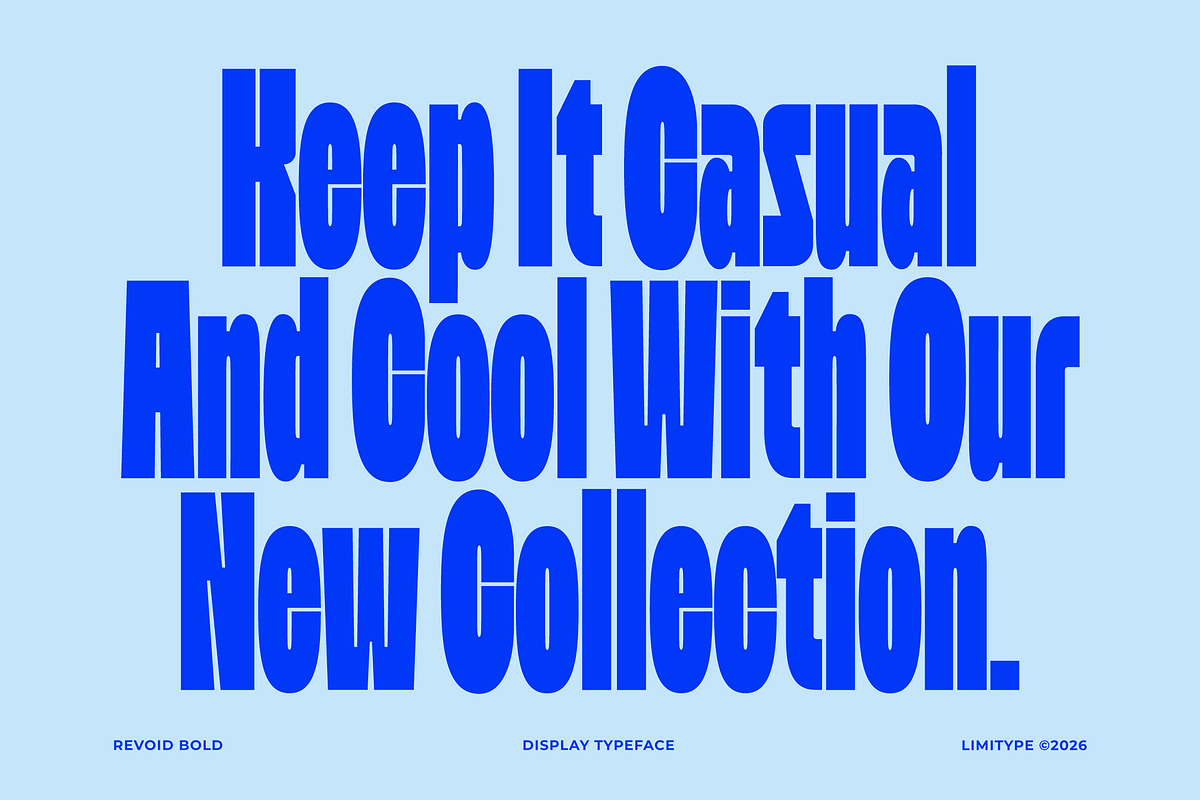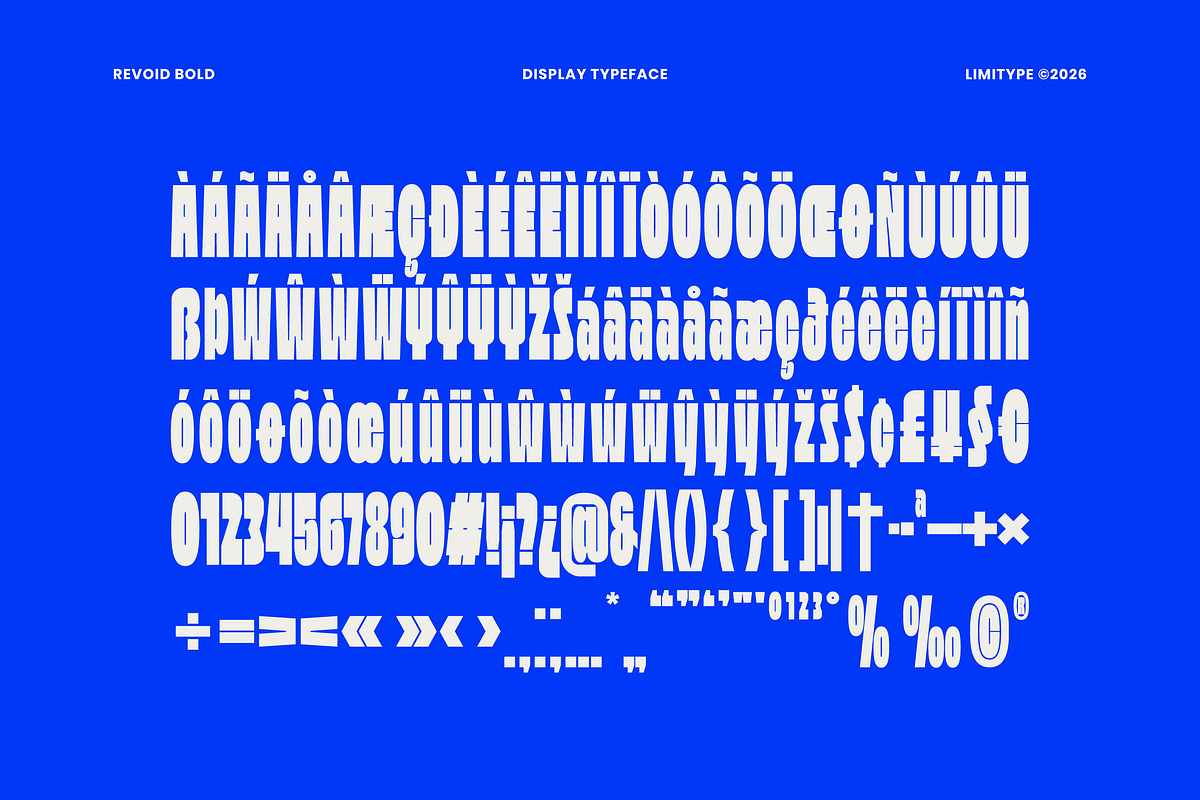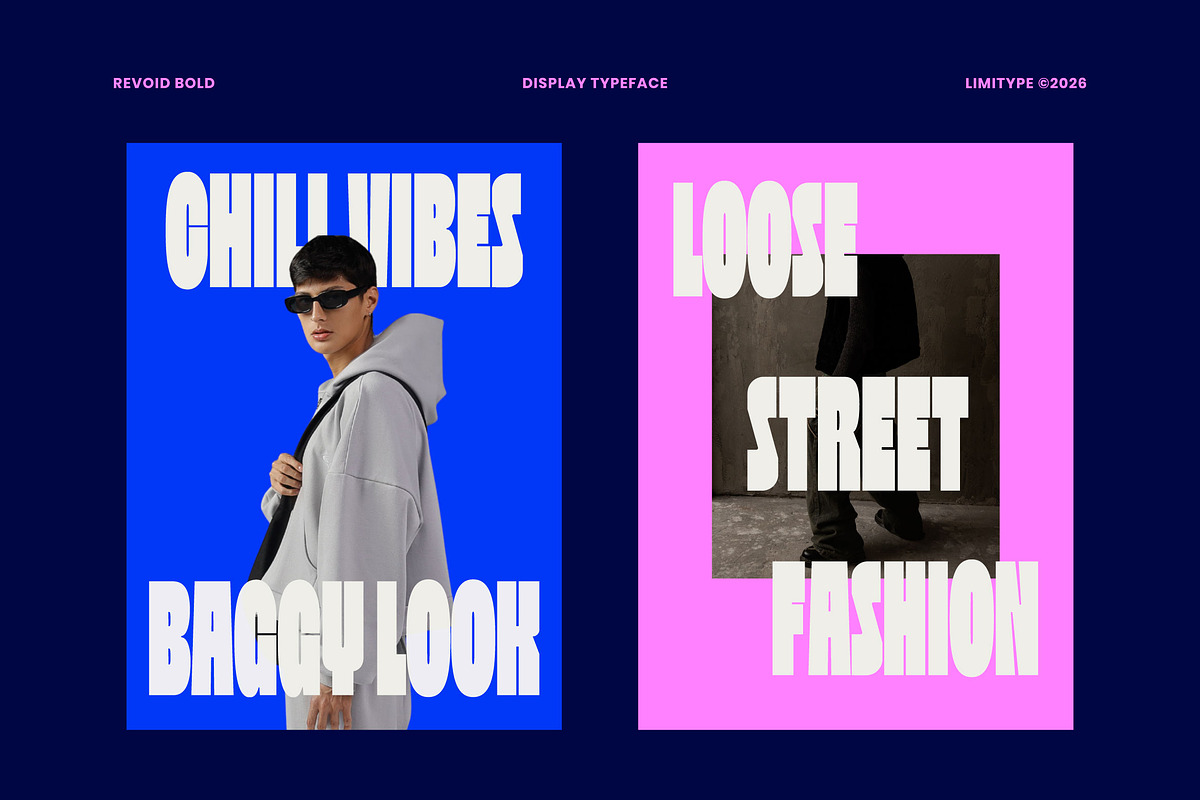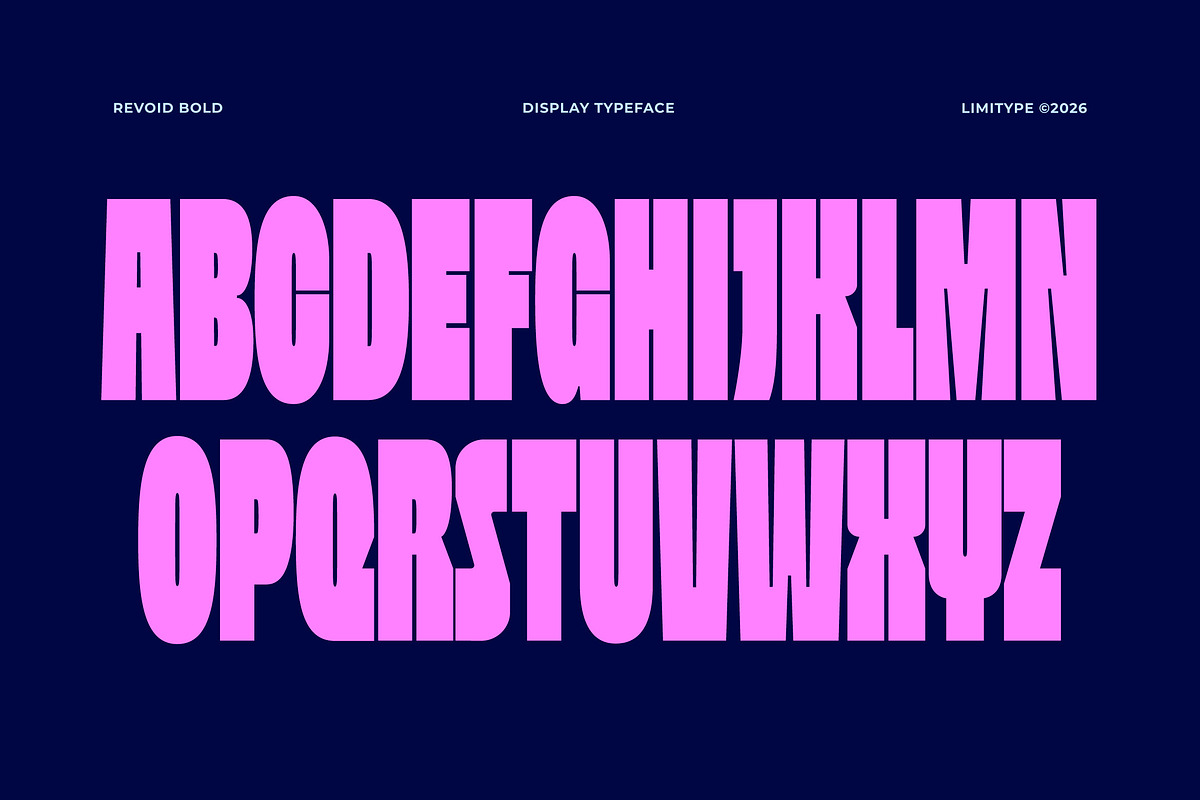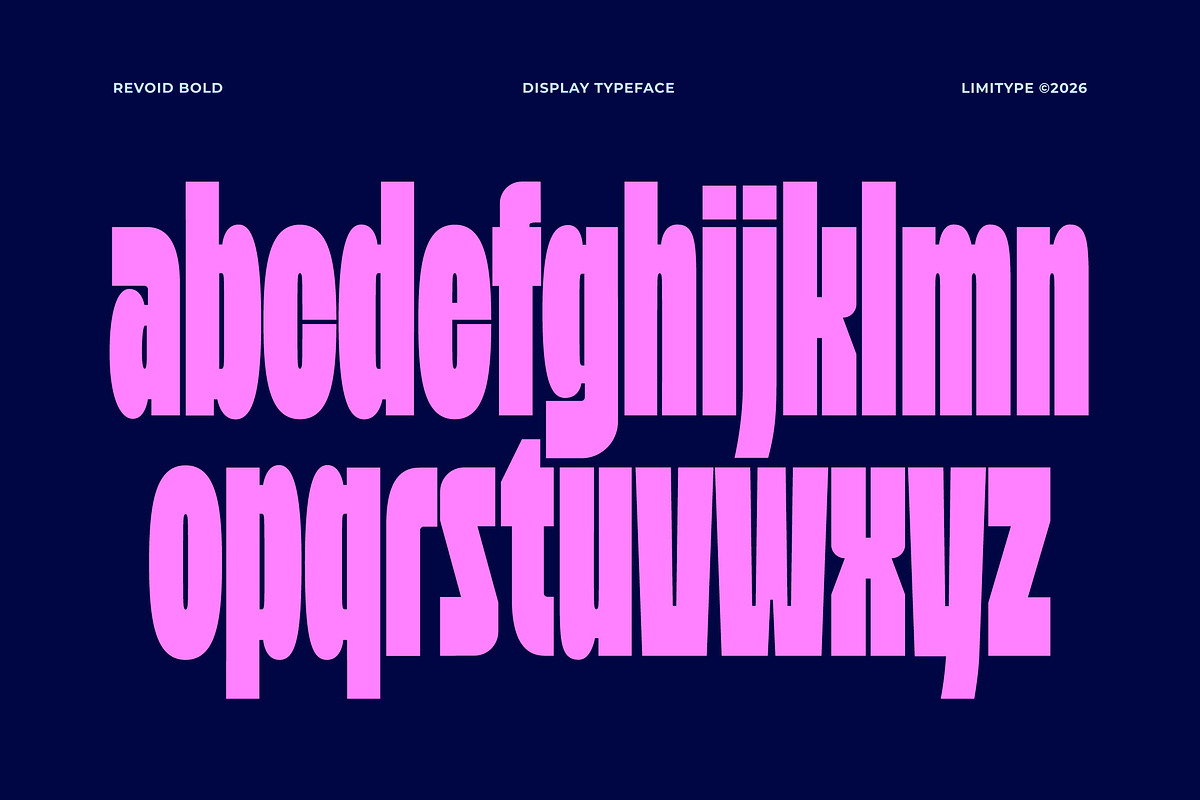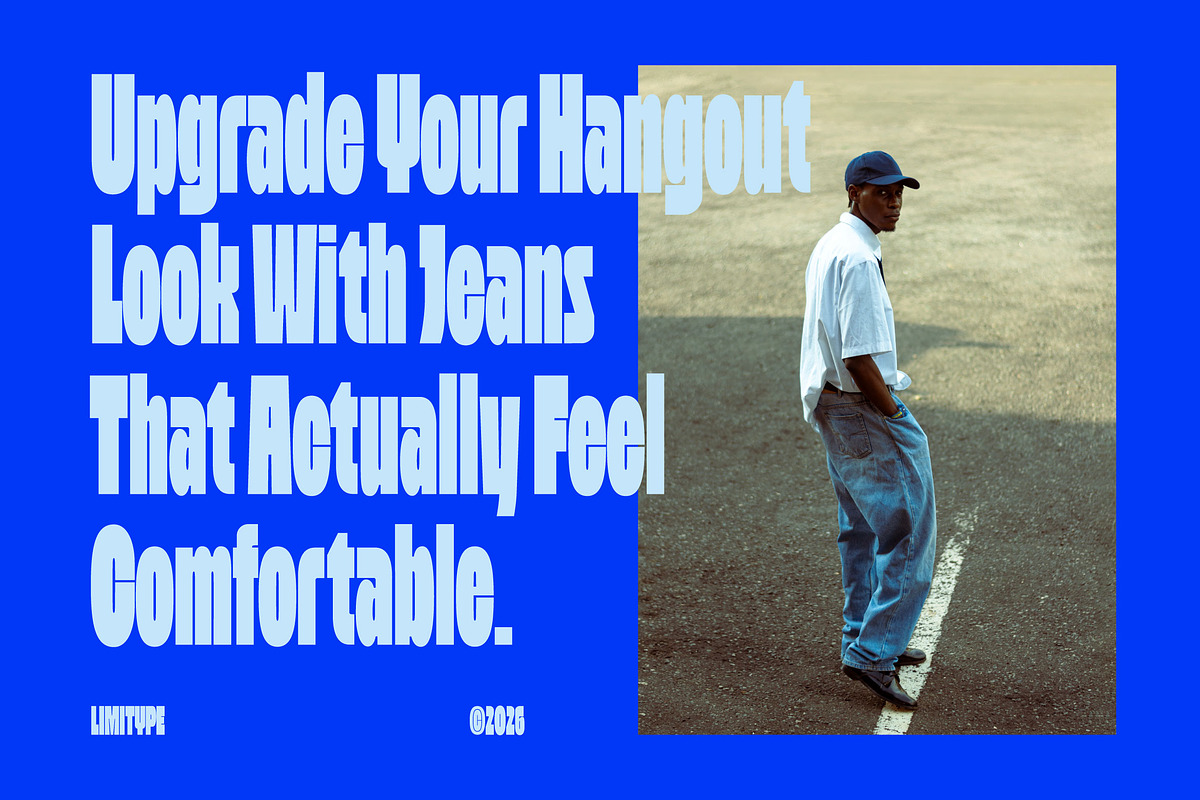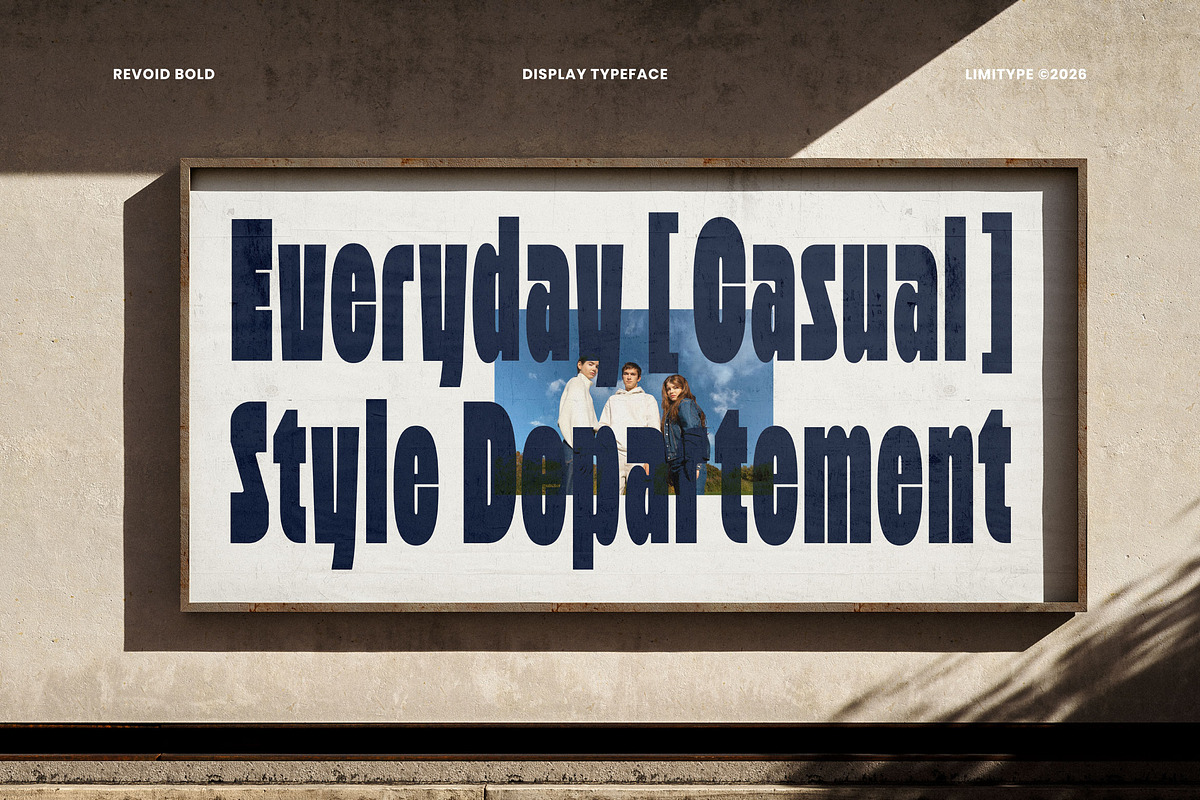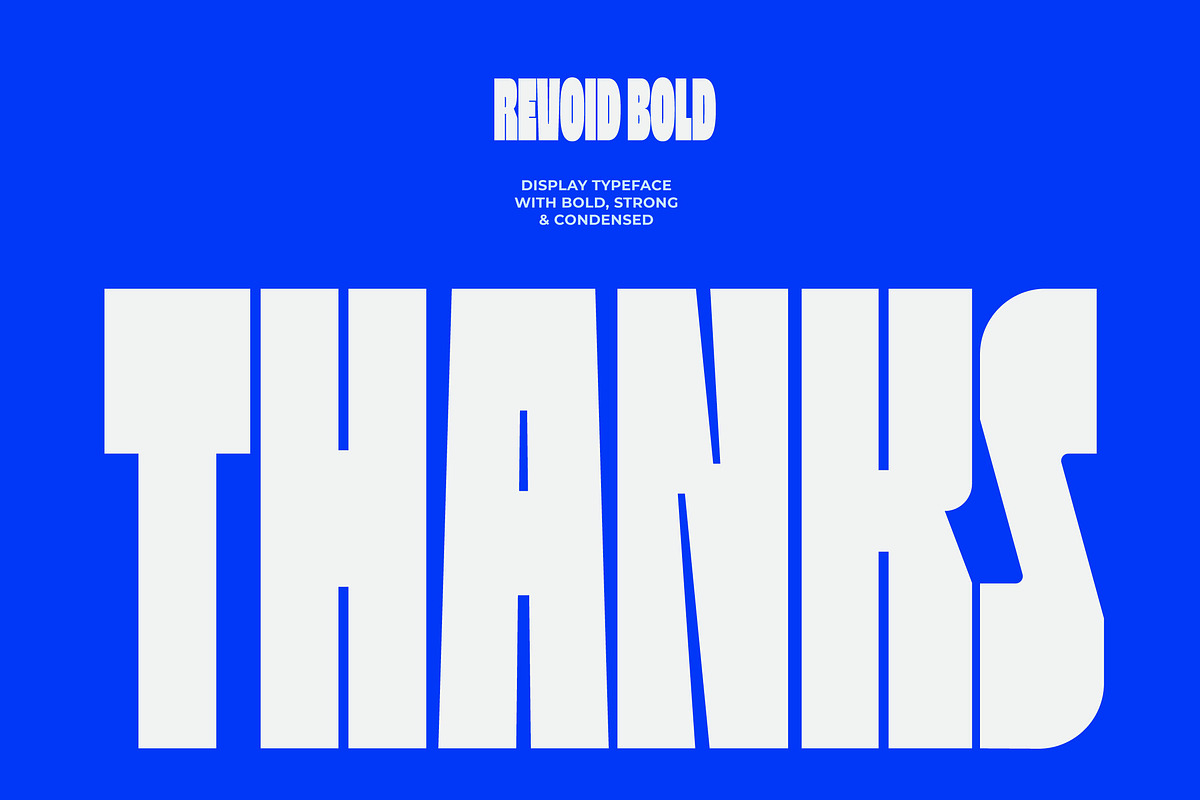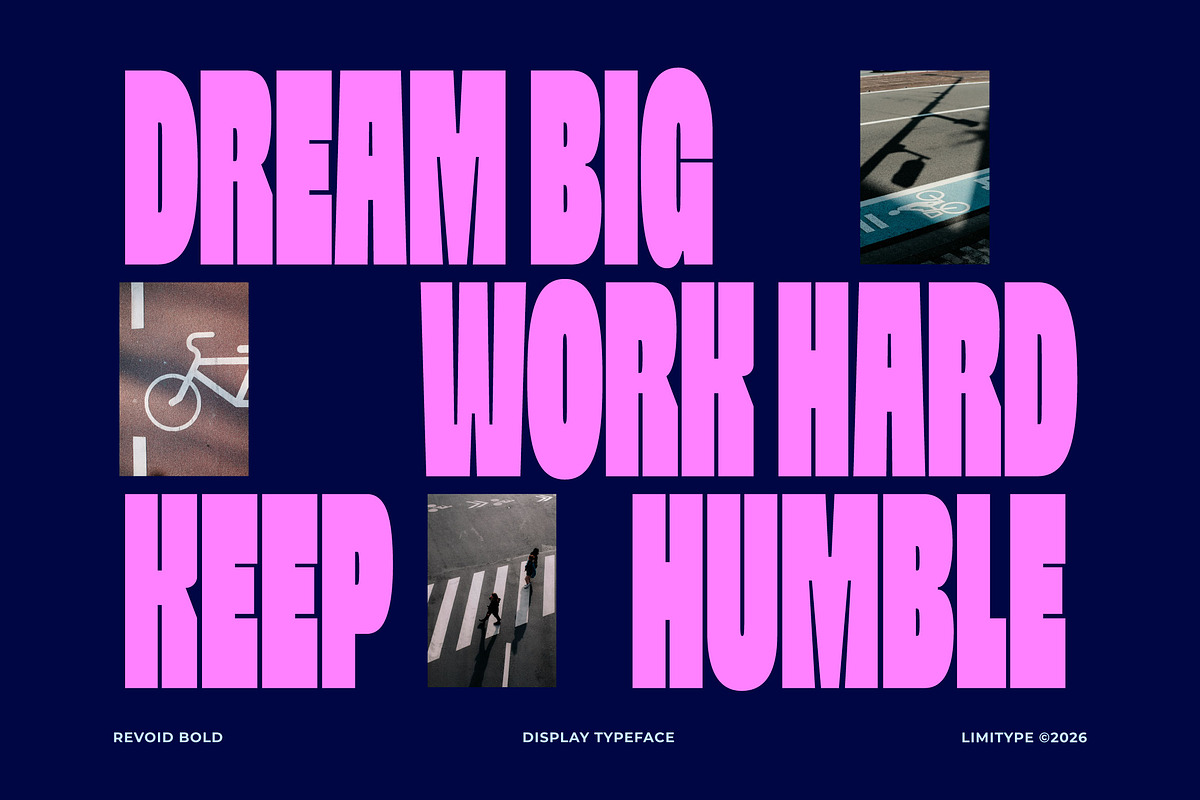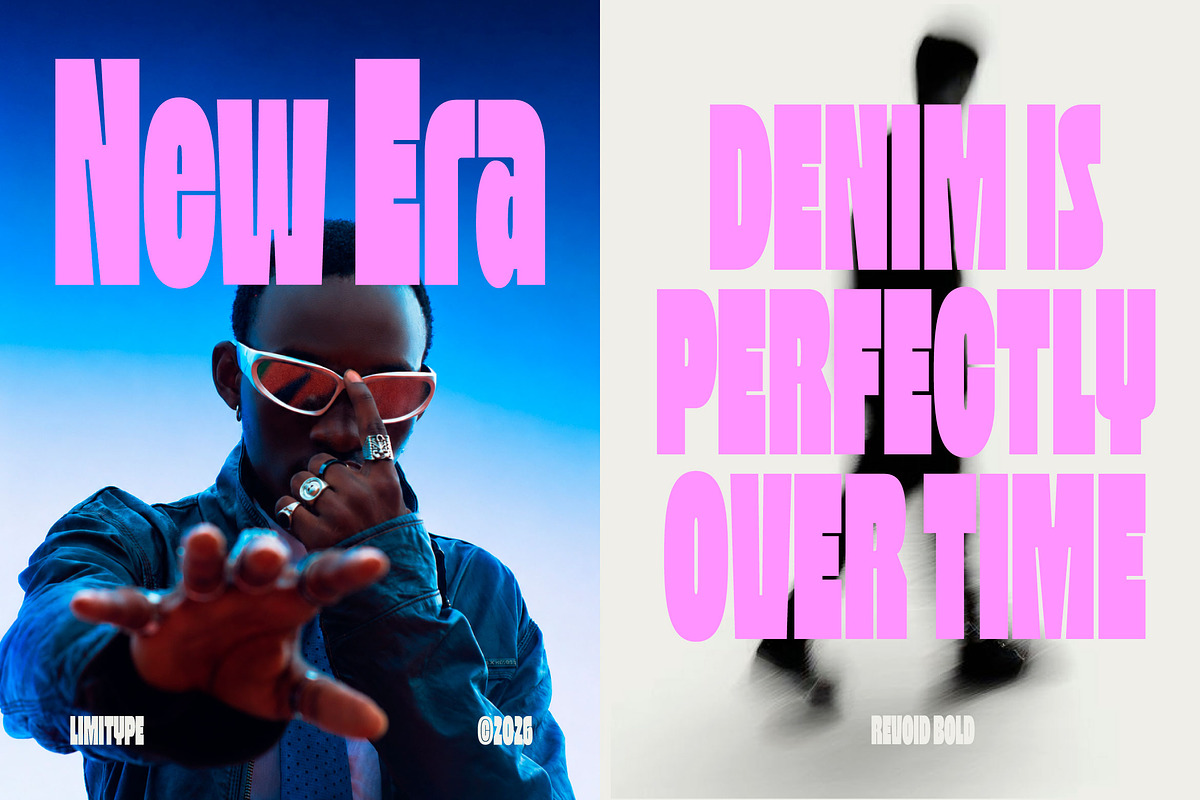
Revoid - Bold Condensed Font
Revoid is a bold condensed display font built with tall, narrow, and tightly packed letterforms. Its dramatic vertical proportions create a powerful visual presence, making it perfect for striking headlines, posters, editorial designs, branding, logos, and bold graphic compositions.
Revoid available with:
Lowercase
Number
Symbol